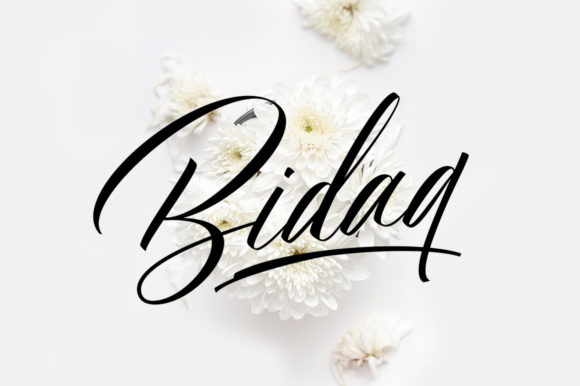
Indulge in the captivating allure of Bidaq, a script font crafted with meticulous care and artistry. Its graceful curves and enchanting flow evoke a symphony of emotions, leaving an unforgettable impression on your designs.
As a font meticulously designed for branding, Bidaq possesses an innate ability to elevate your creations, imbuing them with elegance and sophistication. Its versatility extends far beyond mere aesthetics, as it seamlessly complements a myriad of design concepts. Whether you seek to craft breathtaking logos, captivating social media posts, or enchanting invitations, Bidaq transforms ordinary words into extraordinary works of art.
Beyond its visual appeal, Bidaq embodies a spirit of empowerment. Its characters dance across the page with a fluidity that inspires creativity and ignites your imagination. This font empowers you to express your unique style with confidence and flair.
Embrace the transformative power of Bidaq today and unlock a world of design possibilities. Let its delicate strokes weave their magic into your creations, leaving a lasting impression that resonates with grace and allure.